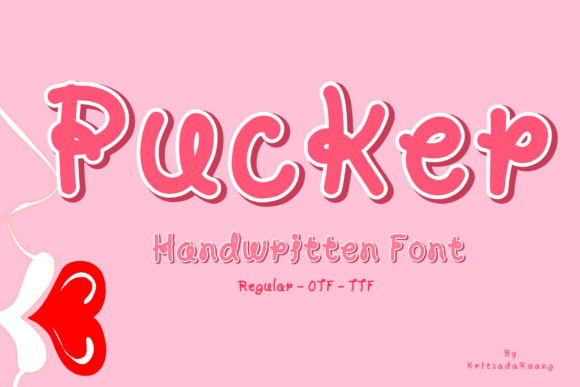
Dive into a world of enchantment with Pucker Font, the extraordinary script font family designed to awaken your creativity and transform your designs into captivating masterpieces. With its captivating charm and effortless readability, Pucker Handwritten Font transcends the boundaries of ordinary typography, inviting you on an adventure of artistic expression.
Imagine your words dancing across the page, infused with a touch of whimsy and elegance. Each letter, meticulously crafted by the talented kritsadaruang, carries the essence of joy and imagination, inviting readers to immerse themselves in a realm of storytelling and wonder.
Unleash your inner artist and bring your wildest design dreams to life. Pucker Font's versatility knows no bounds, effortlessly adapting to a multitude of projects, from enchanting children's books to playful social media posts. Its cheerful and inviting personality shines through, adding a touch of magic to every creation it graces.
Step into a realm where creativity flourishes, where imagination reigns supreme. Experience the Pucker Font difference and watch your designs blossom into captivating works of art. Embrace the allure of this enchanting font family, and unlock the gateway to a world where stories come alive and dreams take flight.